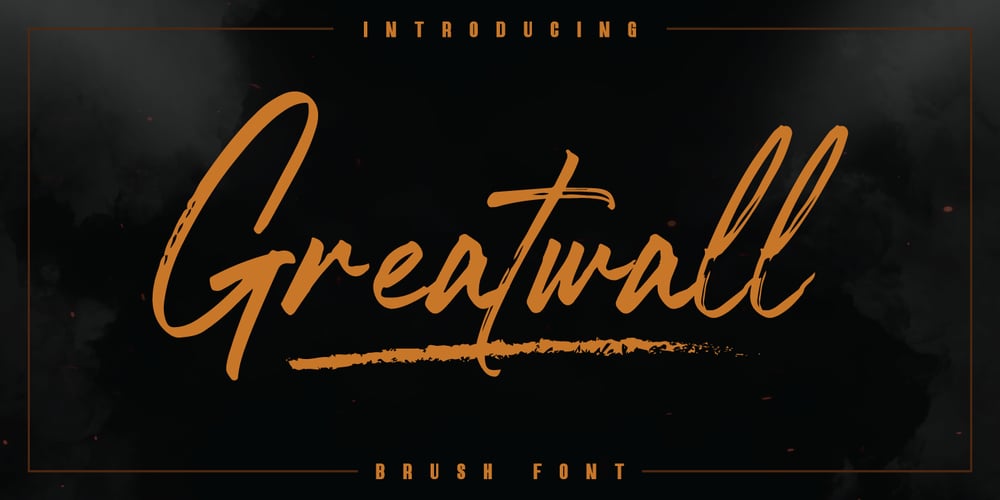
Greatwall
Greatwall font
Greatwall Font Family was designed by Fitriyawan and published by Runsell Type. Greatwall contains 1 styles and family package options. Greatwall is a brush styled script, created by hand with a brush pen. This font is best used for your design project that has the concept of fun, brave and sporty. It is perfectly suited for signatures, stationery, logos, typography quotes, magazines or book covers, website headers, clothing, branding, packaging design and more. It’s a handwritten script font containing upper and lowercase characters, numerals and a large range of punctuation. Greatwall includes: – Basic Character ( Uppercase and Lowercase, Numerals, Symbol and Punctuation) – Multi-Lingual support – Alternates and Ligatures: as is us es os ee dd ff ll mn ht oo of tt th st ss and you ond out. – PUA Encoded